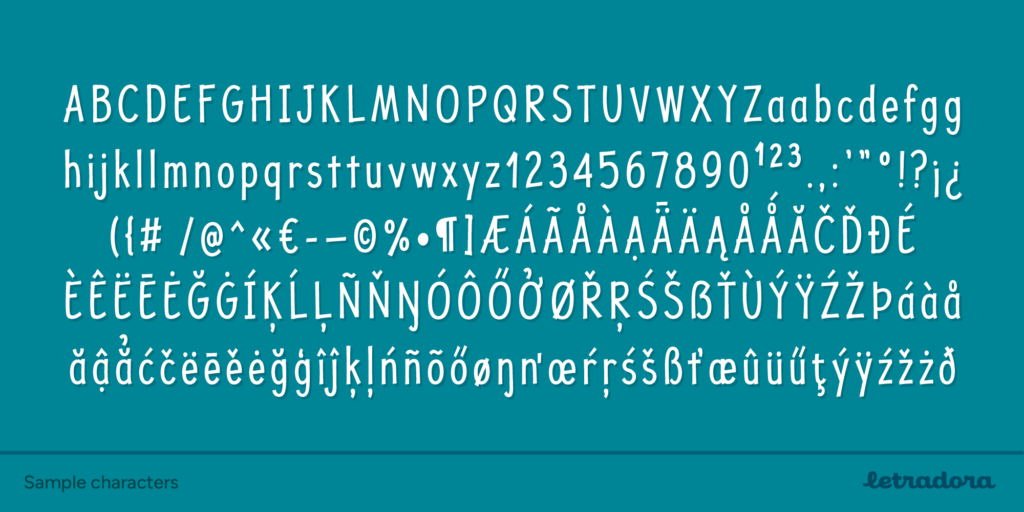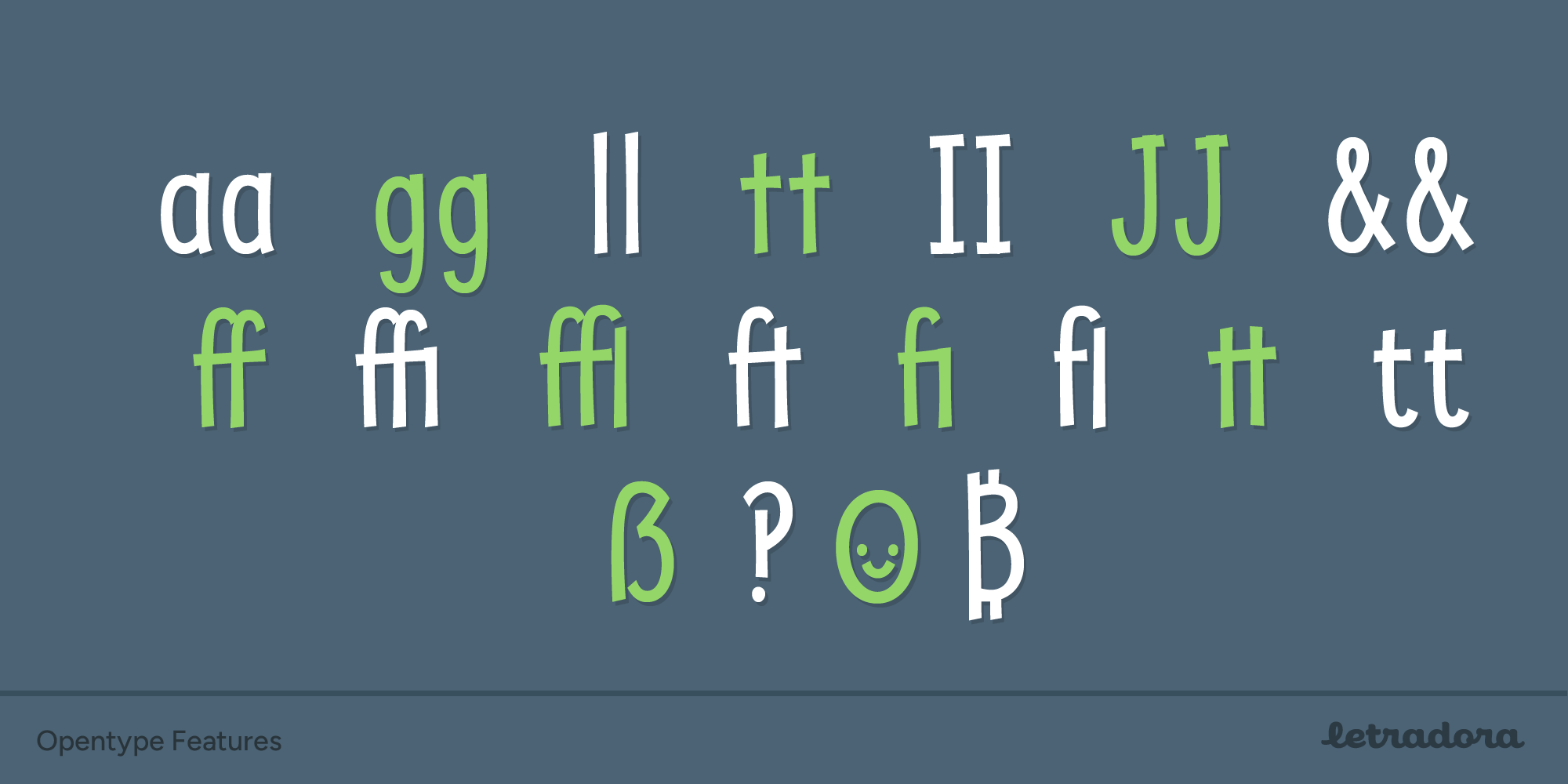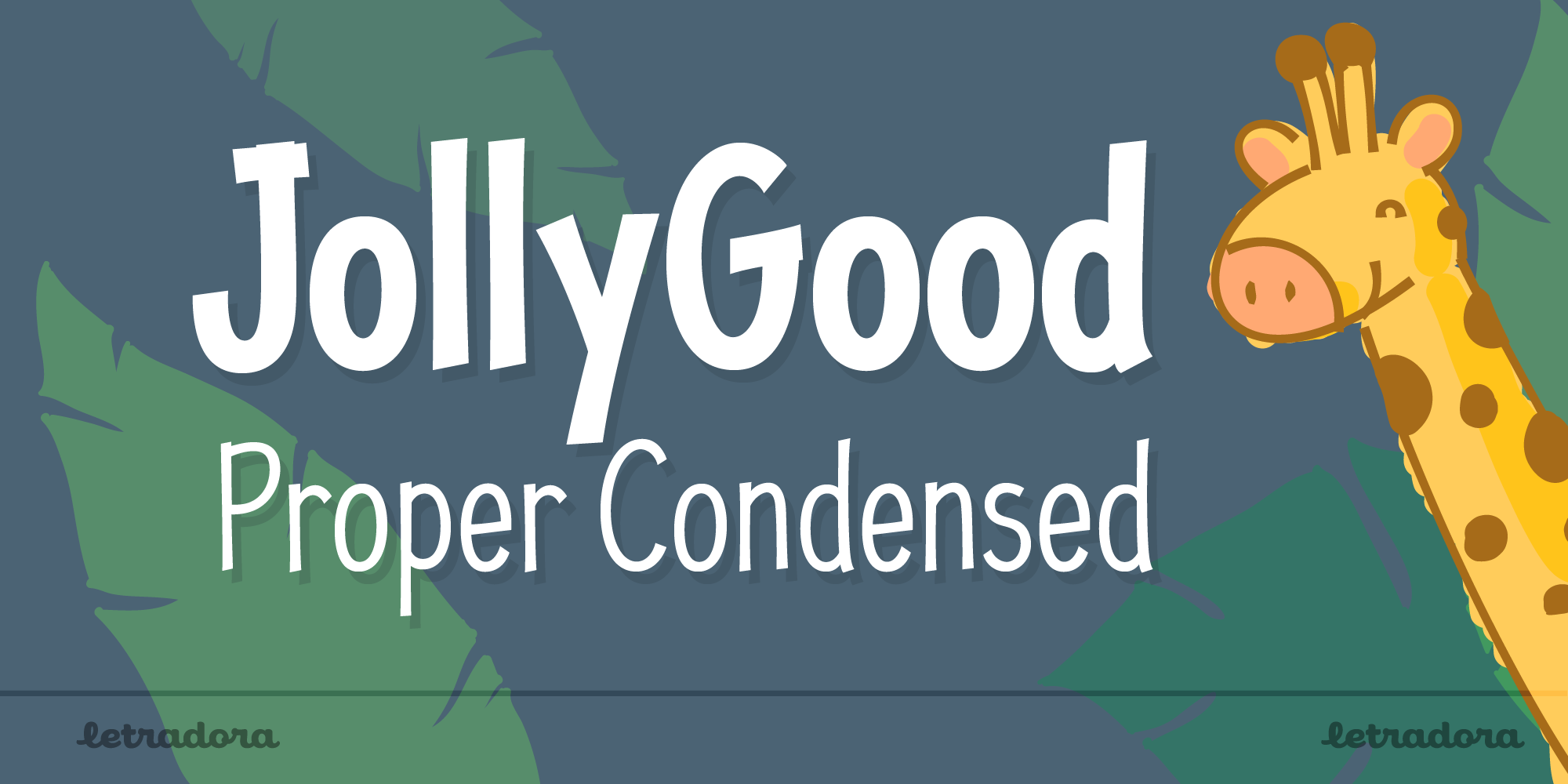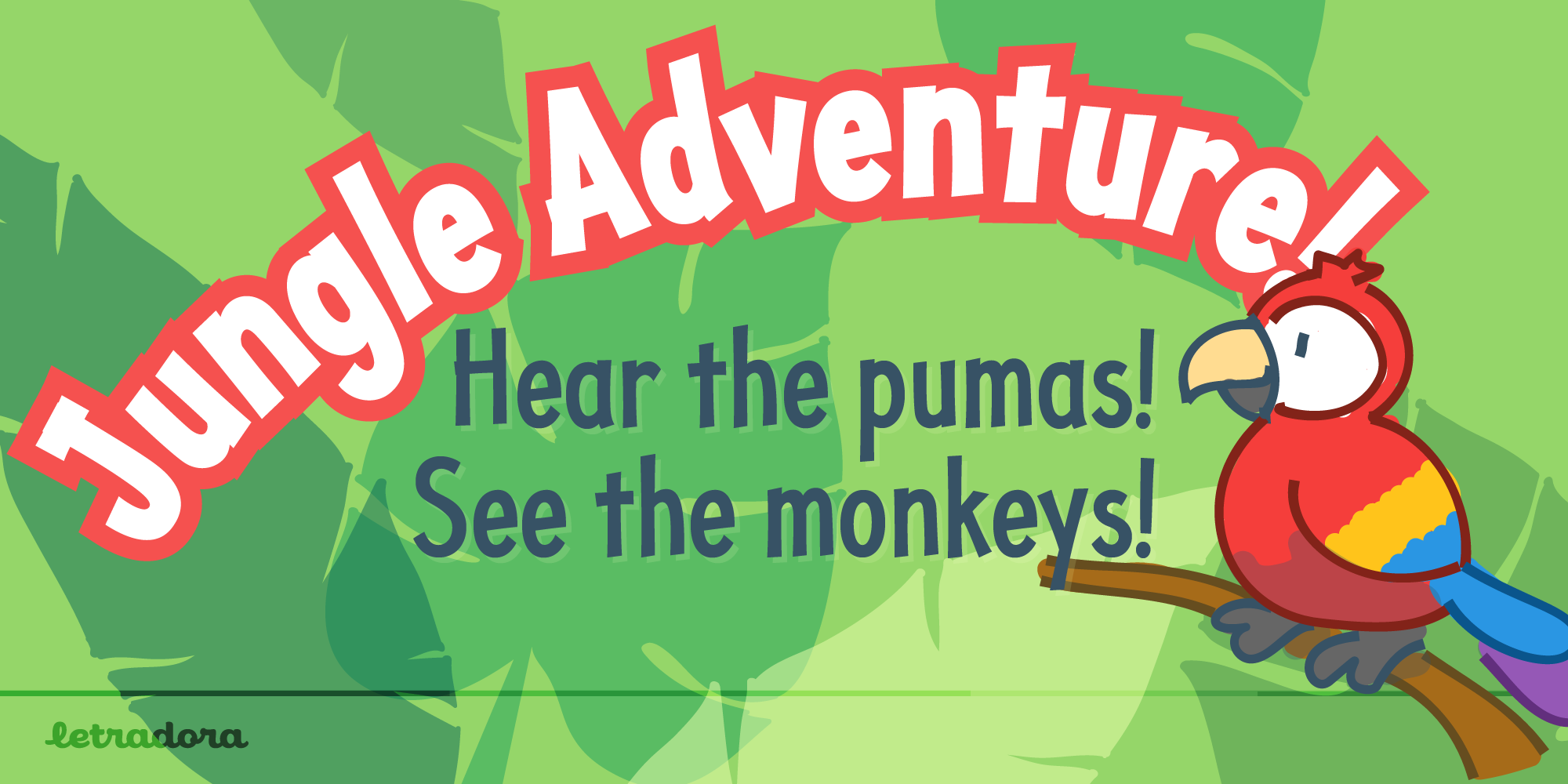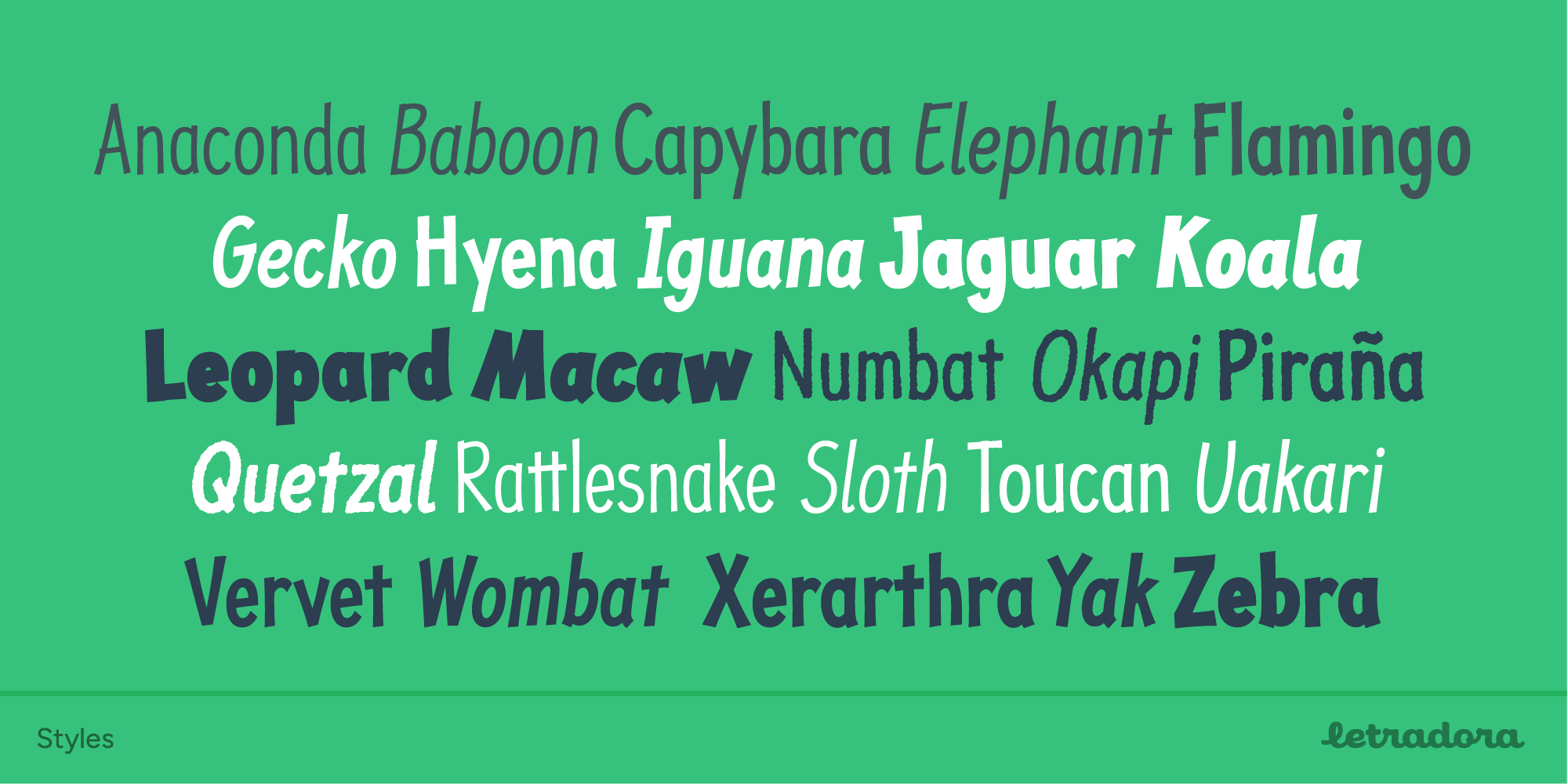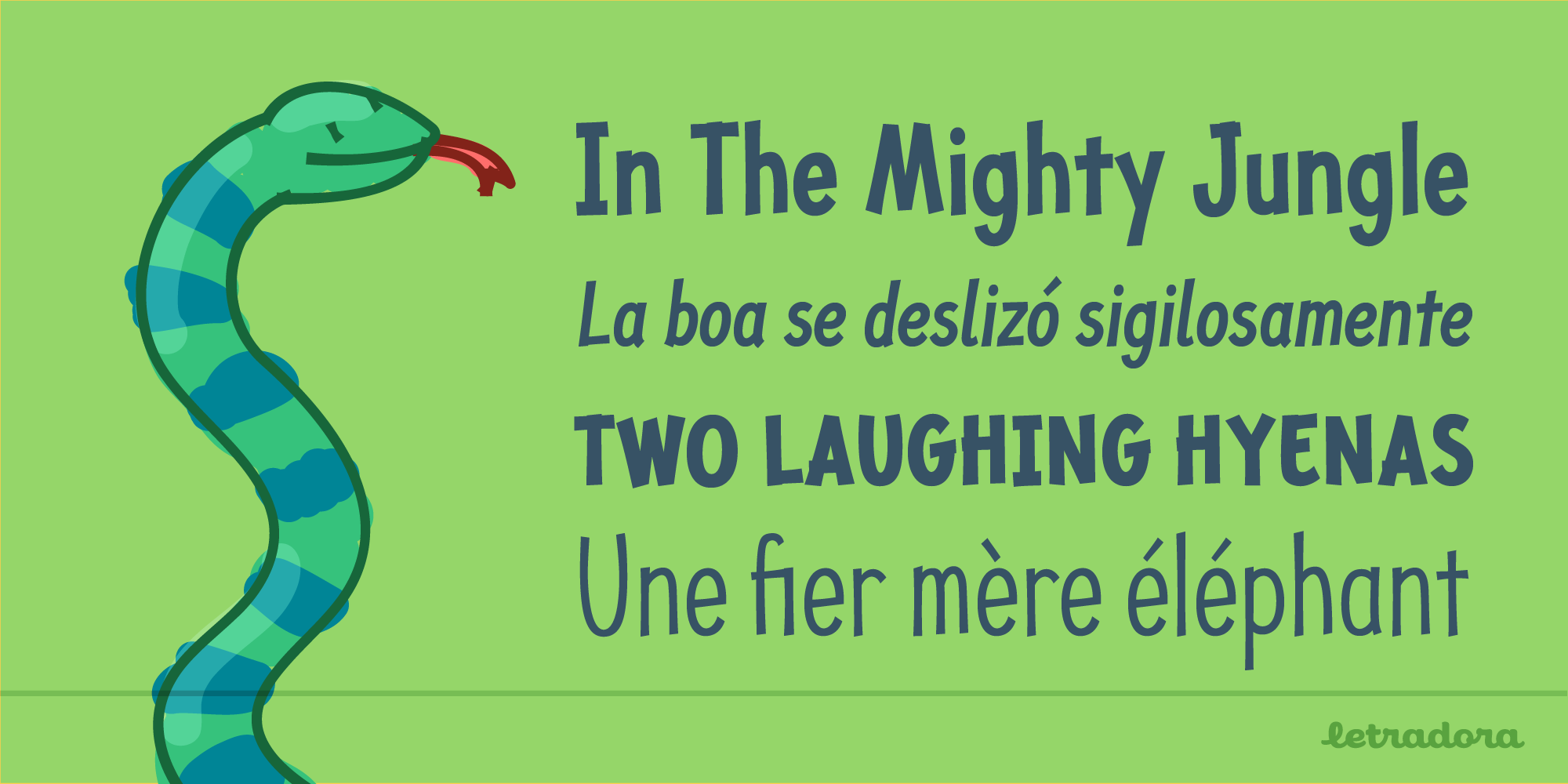
JollyGood Proper Cond
A condensed and legible fun font
JollyGood Proper Condensed is another member of the JollyGood family. It is an informal, hand-lettered font with a narrower weight so you can fit more text while still being fun & legible. It is a complete family with 4 weights in regular and italic (8 fonts in total), plus 4 rough versions. It has an amazing character set, with support for most european languages, as well as alternates and ligatures. JollyGood Proper Condensed is suitable for packaging, children’s books, greeting cards or wherever you need a fun touch in your text.